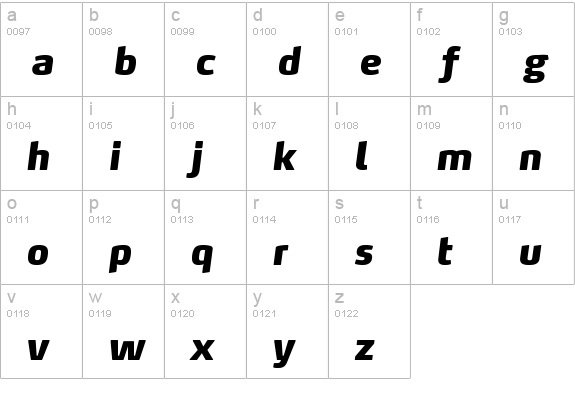
MaxTF-BlackItalic Font Details
MaxTF-BlackItalic font is a bold and elegant typeface that exudes sophistication and modernity. Its sleek design and sharp angles make it perfect for eye-catching headlines and attention-grabbing designs. The unique italic style adds a touch of flair and drama to any project, making it stand out from the crowd. What's even better is that MaxTF-BlackItalic font is completely free to download at FontsMarket.com. This means you can easily access this stunning typeface without any cost, allowing you to elevate your designs without breaking the bank. Don't miss out on the opportunity to enhance your projects with the striking and versatile MaxTF-BlackItalic font today.